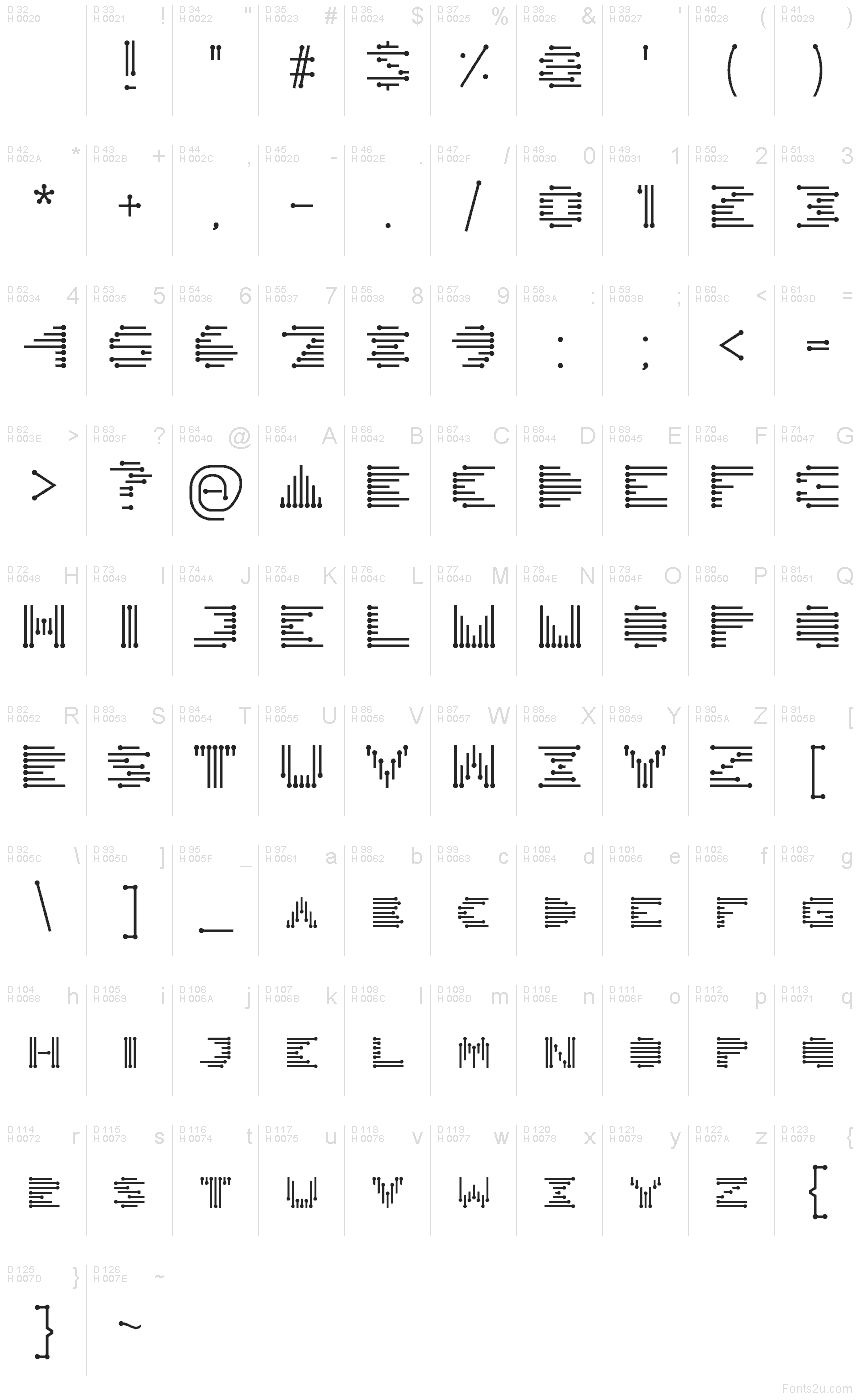
Music Volume
Music Volume font by Galih Nugroho is a free techno display typeface. Its letters snap together from vertical bars and stacked dashes, echoing an audio equalizer mid-beat. The result is loud yet orderly: crisp strokes, modular rhythm, and a pulsing texture that feels like sound made visible.
This free font shines on DJ flyers, festival posters, album covers, streaming banners, nightclub signage, and motion graphics. Using Music Volume, keep headlines large so the bar patterns read cleanly, and give it a touch of extra tracking for clarity. Pair with a neutral sans like Inter or Helvetica for supporting text to let the waveform effect take center stage.